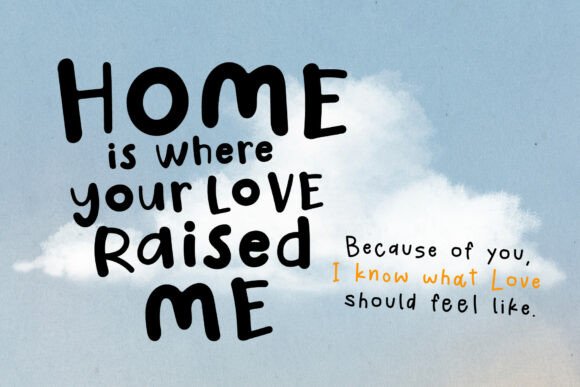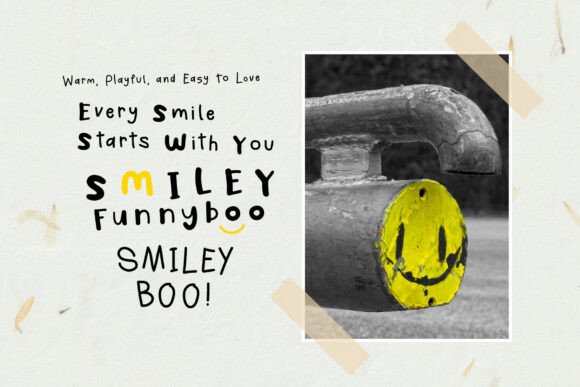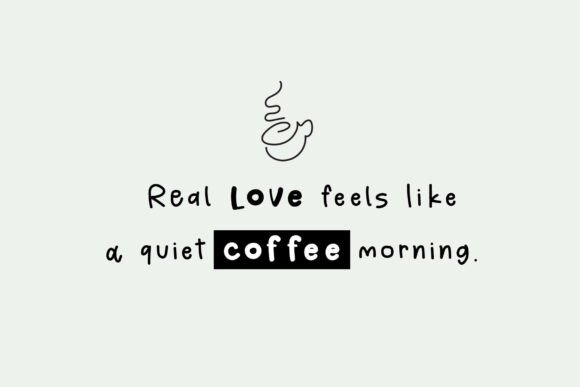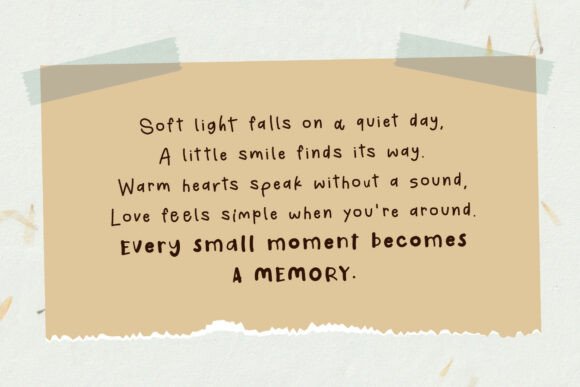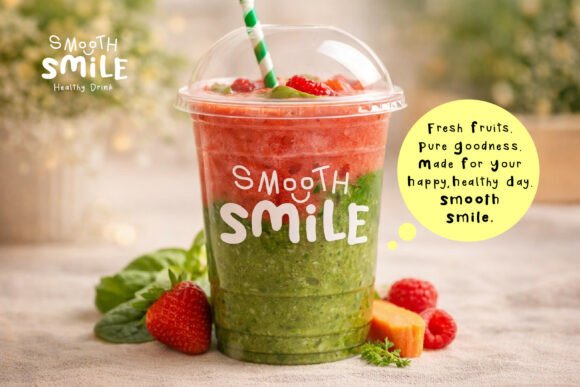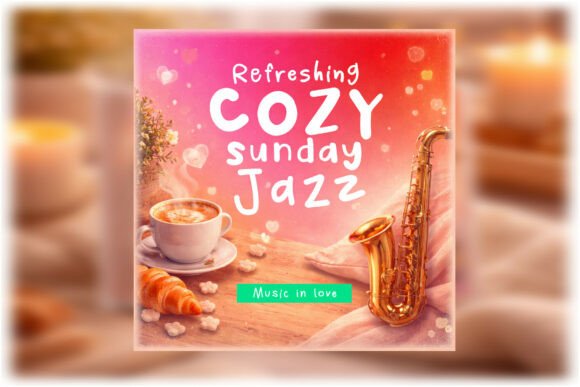
Introduction to Smiley Funnyboo Font
Have you ever been stuck on a design project, desperately searching for the perfect font to bring your creative vision to life? I’m sure many of us can relate to that moment of frustration, staring at our computer screens, wondering if we’ll ever find the perfect design resource. But what if I told you that there’s a font that can instantly brighten up your day and elevate your design game? Say hello to the Smiley Funnyboo Font, a delightful handwritten duo that’s sure to put a smile on your face.
With its soft, rounded terminals and the iconic smiley face integrated into the descenders, this font is a game-changer for designers. Whether you’re working on a greeting card, a friendly app interface, or a bakery branding project, Smiley Funnyboo Font is the perfect design resource to add a touch of warmth and personality to your creative project.
Key Features of Smiley Funnyboo Font
- High-quality design with a transparent background, making it ideal for creative projects that require a clean and modern look.
- Includes a range of emoticon-style characters, perfect for adding a touch of personality to digital designs.
- Perfect for use in digital designs, such as social media graphics, web pages, and mobile apps, where a playful and approachable tone is desired.
Honest Review: Smiley Funnyboo Font
I recently stumbled upon the Smiley Funnyboo Font, and I must say it’s a great addition to my design resource library. The high quality and crisp lines make it perfect for a creative project.
The font comes in a variety of styles and weights, allowing for a lot of versatility in design. I love the playful and whimsical feel it adds to any text. It’s ideal for anyone looking for a fun and lighthearted font.
Here are some of the things I like about Smiley Funnyboo Font:
- ✨ Transparent background: This makes it easy to use in various design scenarios, from digital to print.
- ✨ Customizable: With multiple styles and weights, you can customize it to fit your design needs.
- ⚠️ Limited support: I’ve noticed that the font doesn’t support certain languages or special characters.
- ⚠️ Not ideal for formal projects: While it’s perfect for creative projects, it may not be the best choice for more formal or professional designs.
Overall, I think Smiley Funnyboo Font is a fantastic design resource that’s worth checking out. It’s a great addition to any design library, and I’m excited to see what kind of creative projects I can use it in.
Tips for Getting the Most Out of Smiley Funnyboo Font
Use the Smiley Funnyboo Font in conjunction with other playful design elements, such as emojis and illustrations, to create a cohesive and engaging design. Experiment with different font sizes and styles to add visual interest to your design project.
The Smiley Funnyboo Font is perfect for designing social media graphics, blog posts, and marketing materials that require a playful and approachable tone. It’s also great for creating invitations, posters, and other promotional materials that need a fun and creative touch.